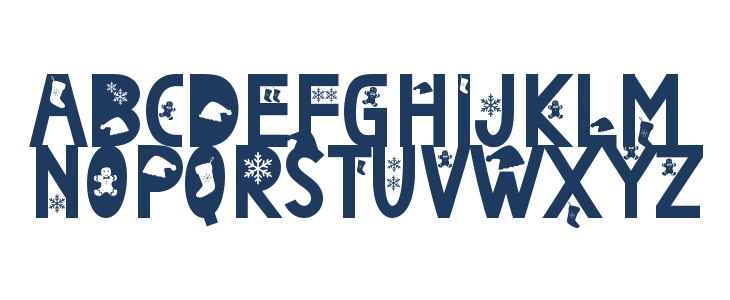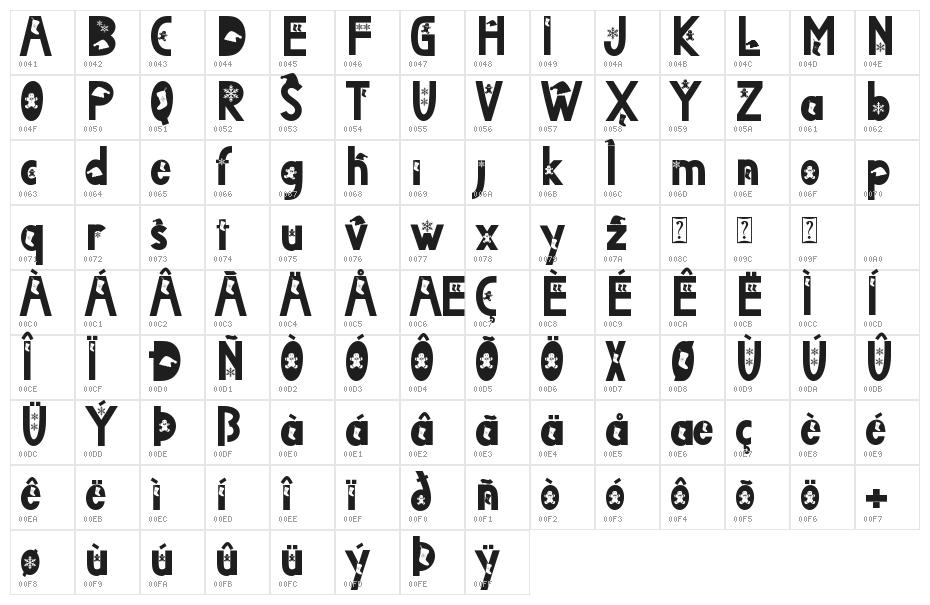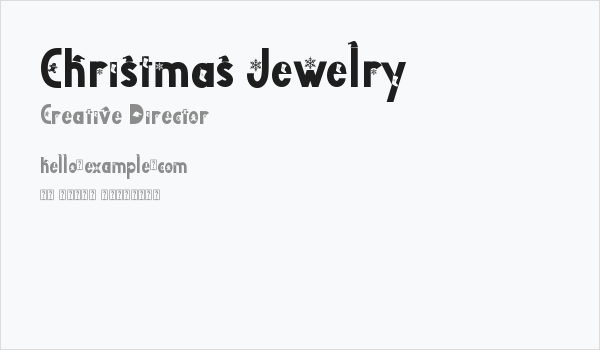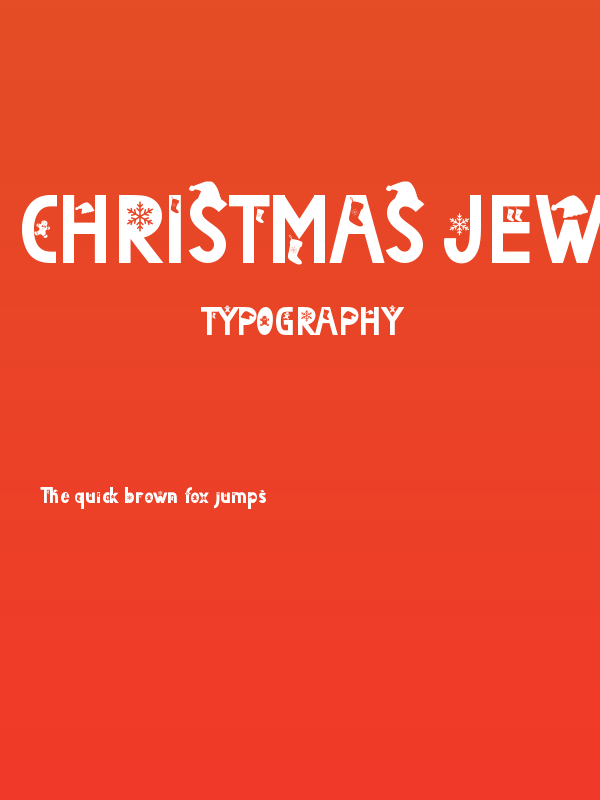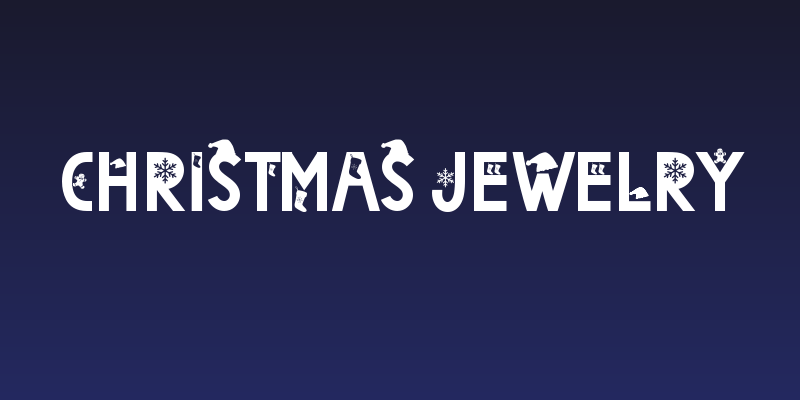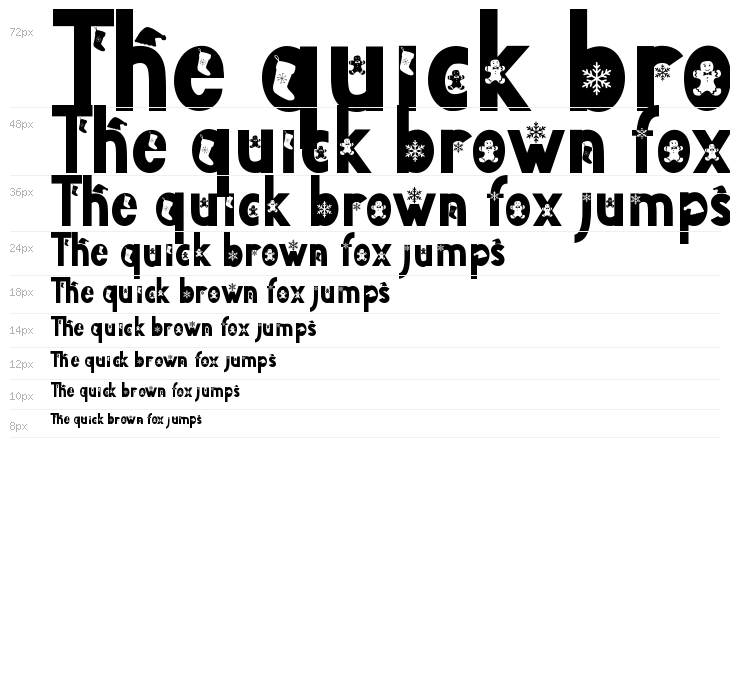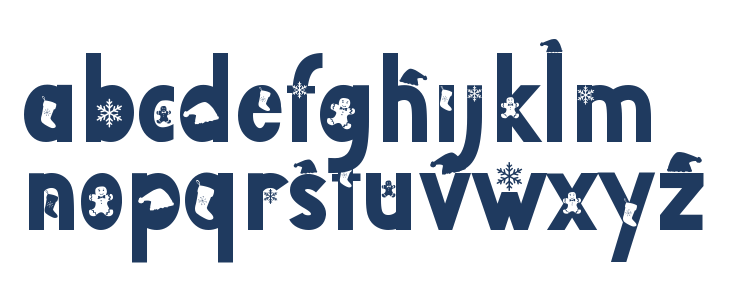
Christmas Jewelry Font
Christmas Jewelry Description
A playful, bold display typeface featuring Christmas-themed decorative elements such as snowflakes, stockings, Santa hats, and snowmen integrated into the letterforms. The characters are geometric and sans-serif, with consistent stroke weight and whimsical holiday embellishments.
| Overall Style | Decorative, Festive, Playful |
| Use Case | Headlines, Posters, Logos, Greeting cards |
| Proposed Projects | Holiday cards, festive posters, seasonal branding, party invitations, childrenΓ’β¬β’s event materials. |